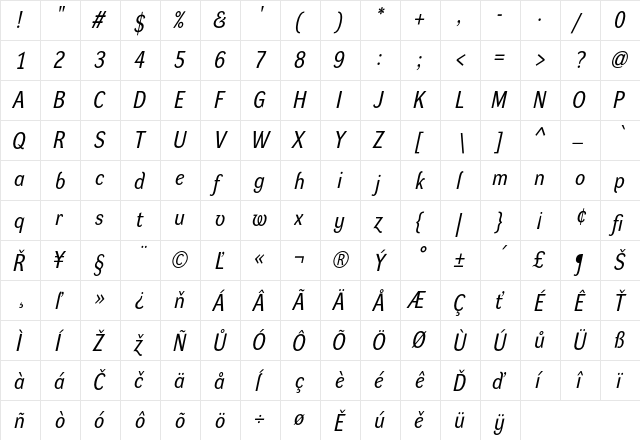
Dynamo RM Regular
Design Context for Dynamo RM Typeface
Dynamo RM offers clean, dependable letterforms without strong stylistic allegiance, making it a practical choice for designers who need flexibility.